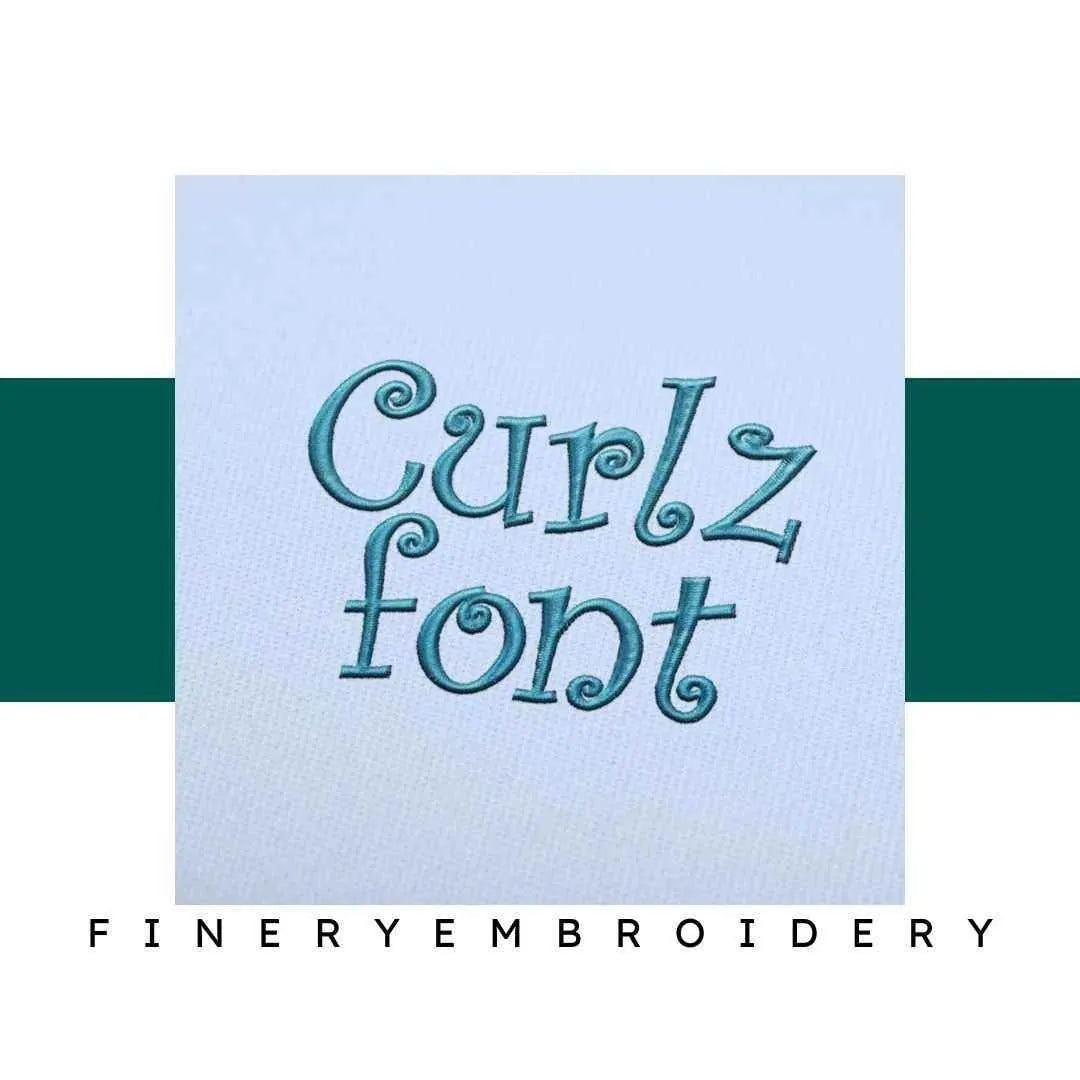
Unleash your creativity with the Curlz Embroidery Alphabet Font Set, where elegance meets high-quality craftsmanship for stunning embroidery projects!
Welcome to the world of the Curlz Embroidery Alphabet Font Set, a delightful collection designed to elevate your embroidery creations. This font set is not just a tool; it's a gateway to infuse sophistication and charm into your projects. With its intricate and elegant designs, you will find endless possibilities to express your creativity.
The Curlz Embroidery Alphabet Font Set stands out for its exquisite detail and versatility. Each character is meticulously crafted to ensure that your finished pieces radiate elegance. This font set is not just about aesthetics; it's about providing the quality and precision needed for professional-grade embroidery.
Imagine using the Curlz font on everything from personalized gifts to home decor. This set allows you to add a touch of flair to various projects, including monograms, quotes, and unique designs for apparel. The elegant curves of each letter provide a whimsical yet sophisticated look, perfect for any creative endeavor.